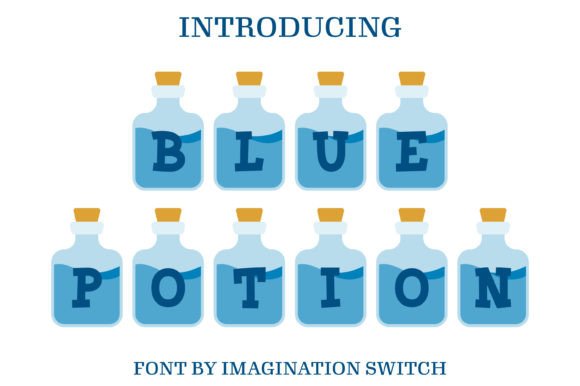
Introducing Blue Potion Font: A Captivating Typographic Creation
In the realm of typography, a new star has emerged: Blue Potion Font. This enchanting font is designed to mesmerize with its intriguing use of colors, elevating its visual appeal to new heights. Whether you’re a designer, a crafter, or simply someone who appreciates the art of typography, Blue Potion Font is sure to captivate your senses.
A Comprehensive Character Set
One of the standout features of Blue Potion Font is its complete set of characters. This includes uppercase letters, lowercase letters, and numbers, meticulously crafted to provide maximum flexibility across various types of projects. This extensive character set ensures that you have everything you need to bring your creative visions to life.
Blue Potion Font is not just a one-trick pony; it’s a versatile typographic tool that can be used for a wide range of purposes. Whether you’re working on print designs, web designs, promotional materials, or any other project that requires a touch of elegance and sophistication, this font is an excellent choice. Its adaptability makes it an invaluable asset for designers and crafters who work on diverse projects.
Exceptional Legibility and Visual Appeal
What sets Blue Potion Font apart from other fonts is its exceptional legibility and visually appealing presentation. The creators have paid meticulous attention to detail, ensuring that each character is not only beautiful but also easy to read. This makes Blue Potion Font an ideal choice for projects where you want to enhance the visualization of your message without compromising on clarity.
Suitable for Various Design Needs
From branding and advertising to packaging and web content, Blue Potion Font can be used in a myriad of design applications. Its unique blend of style and functionality makes it perfect for:
- Print designs: brochures, posters, business cards, and more
- Web designs: websites, blogs, and social media graphics
- Promotional materials: flyers, banners, and advertisements
- Packaging: product labels, packaging inserts, and boxes
Why Choose Blue Potion Font?
With so many fonts available, why should you choose Blue Potion Font? Here are a few compelling reasons:
- Unique Aesthetic: Blue Potion Font offers a distinctive look that will set your projects apart from the crowd.
- High Versatility: Its comprehensive character set and adaptability make it suitable for a wide range of projects.
- Excellent Legibility: The font’s clarity ensures that your message is conveyed effectively.
Tips for Using Blue Potion Font
To get the most out of Blue Potion Font, consider the following tips:
- Experiment with Colors: While the font comes with an intriguing color scheme, don’t be afraid to experiment with different colors to match your brand or project’s requirements.
- Mix and Match: Combine Blue Potion Font with other fonts to create a unique visual hierarchy.
- Pay Attention to Size: Ensure that the font size is appropriate for your design to maintain legibility.
Blue Potion Font is a captivating typographic creation that offers a unique blend of style, versatility, and legibility. Whether you’re a designer, a crafter, or simply someone who appreciates beautiful typography, this font is sure to enhance your projects. With its comprehensive character set, adaptability, and visually appealing presentation, Blue Potion Font is an excellent addition to any design toolkit.
So, what are you waiting for? Dive into the world of Blue Potion Font and discover how this enchanting typographic creation can elevate your designs to new heights.